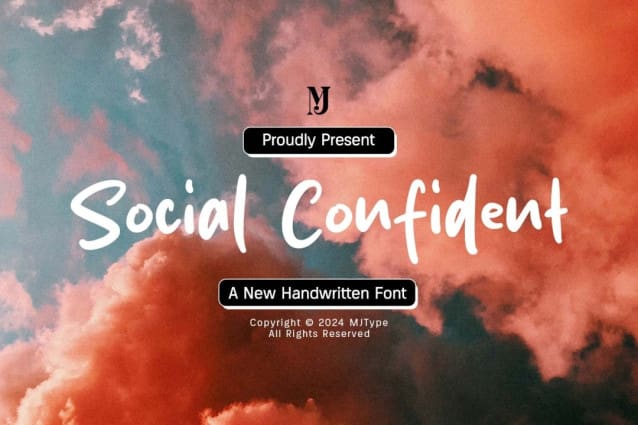
Social Confident Font
Social Confident Font, is a simple and friendly handwritten font. Its natural and unique style makes it incredibly fitting to a large pool of designs. The only limit is your imagination!